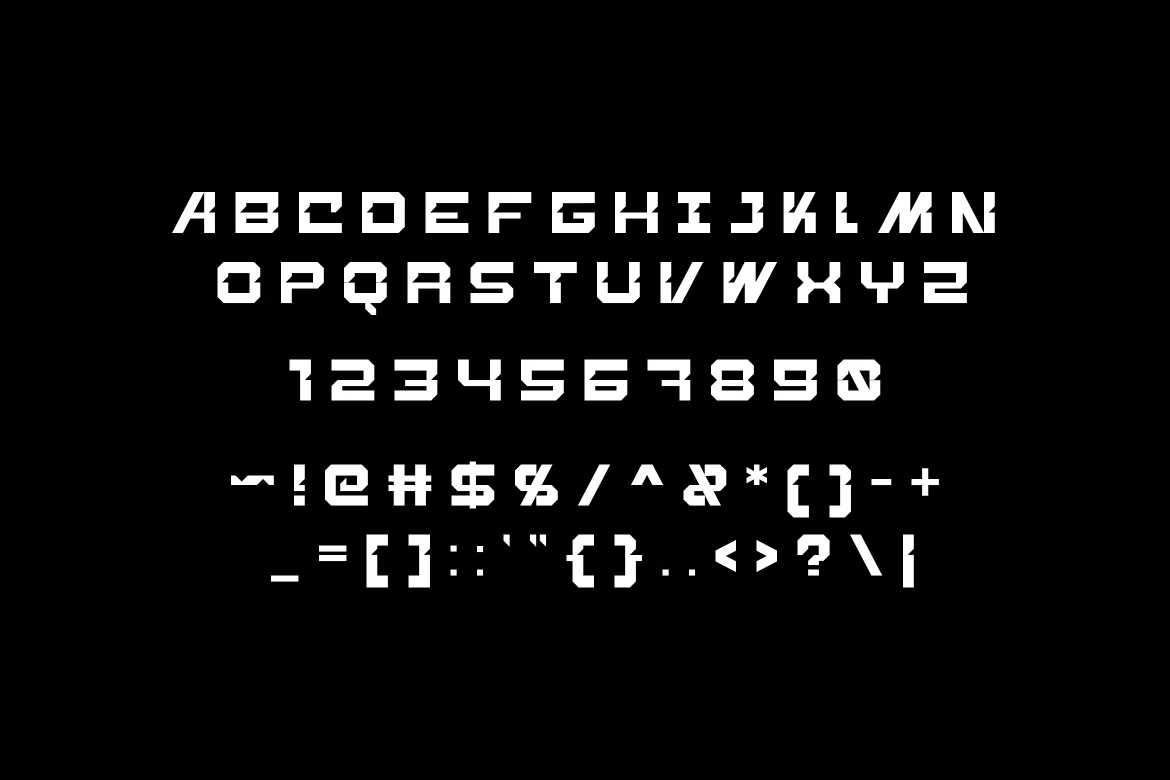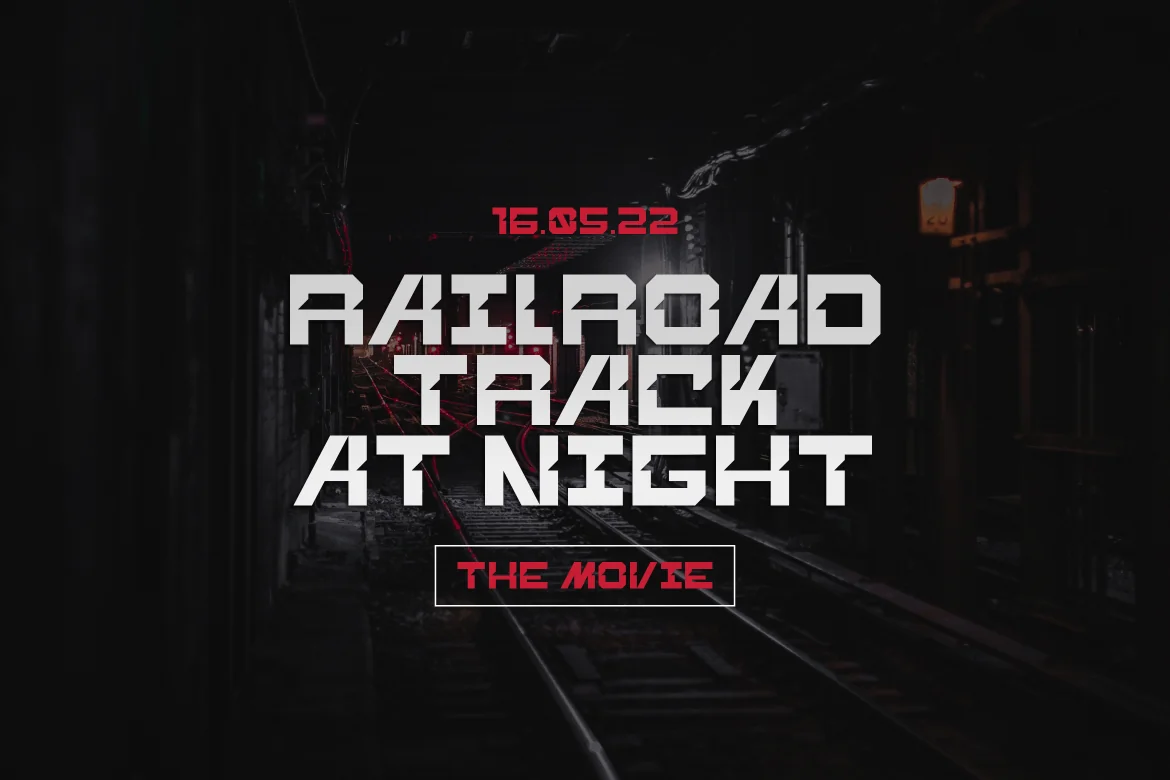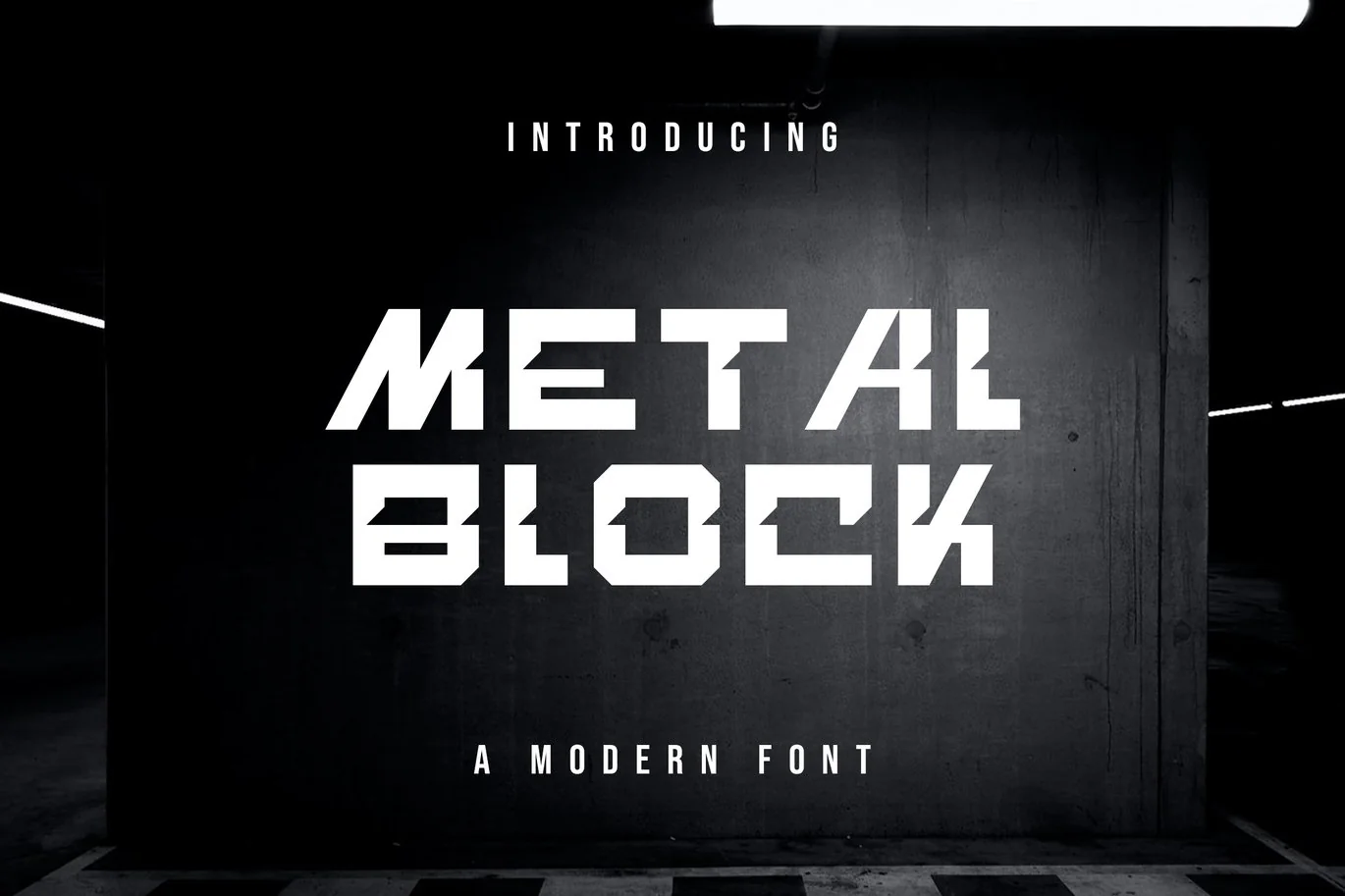
Metal Block Awesome Font
MetalBlock is a font with a distinctive touch, it looks strange and modern. We made this font because we saw the number of  fonts on the market, so we worked hard to make MetalBlock a good font that you deserve.
MetalBlockis perfect for various projects for example: quotes, blog headers, posters, weddings, branding, logos, fashion, clothing, letters, invitations, stationery, etc.